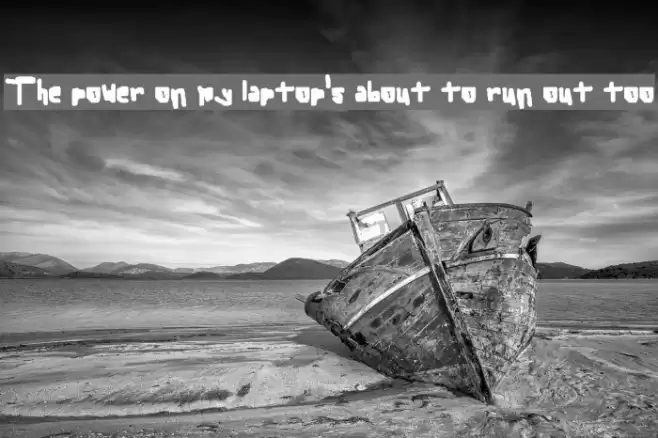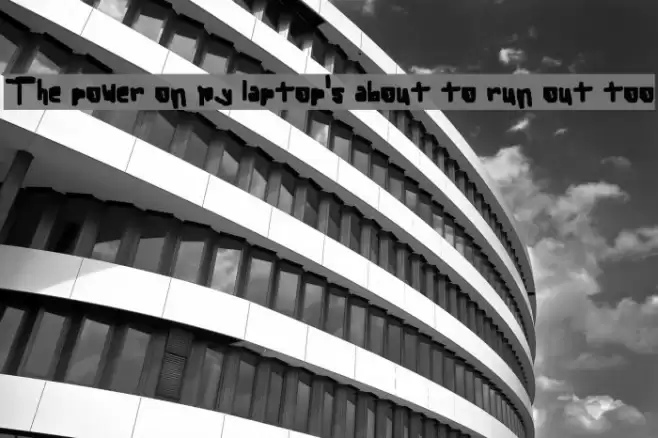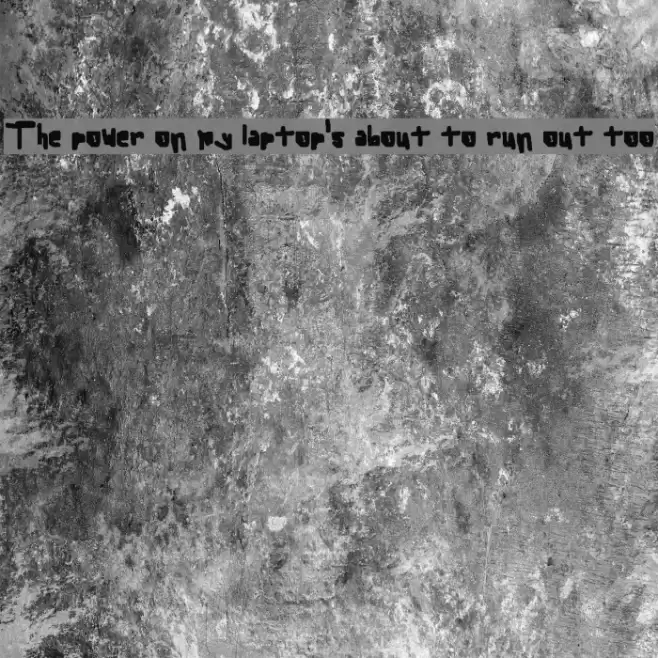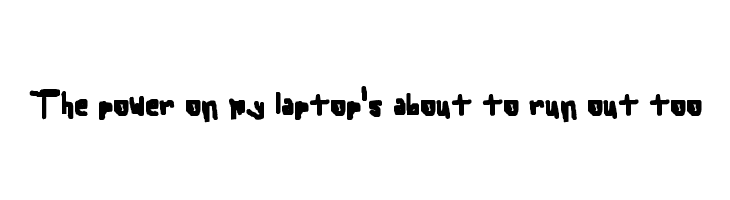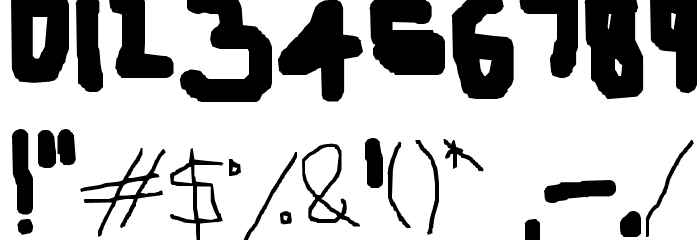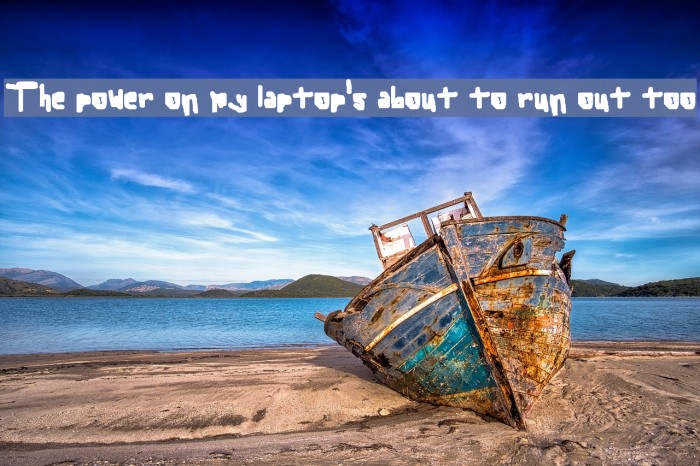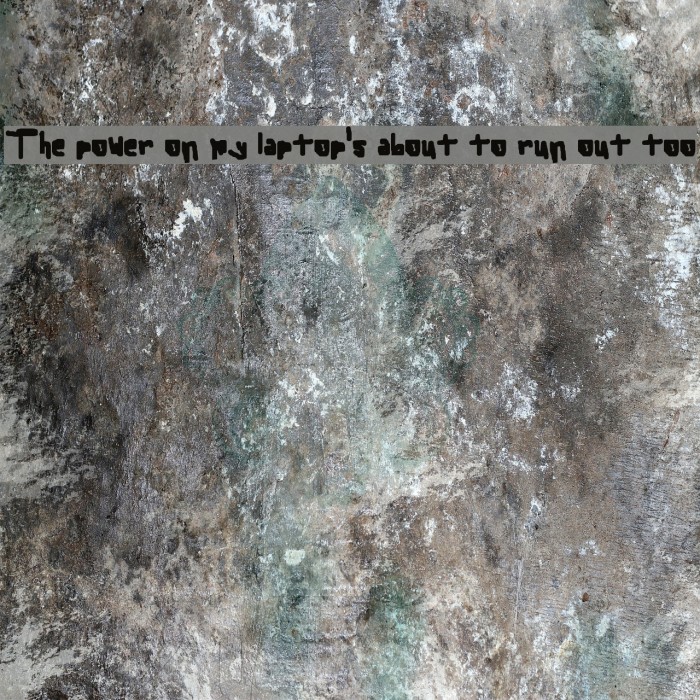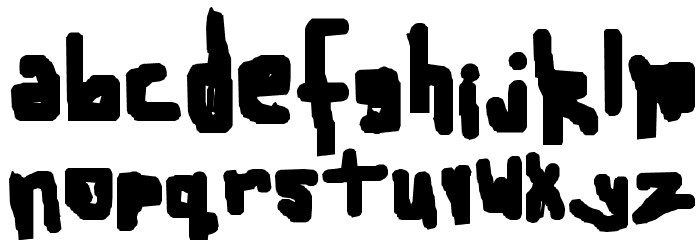
The power on my laptop's about to run out too Font
The power on my laptop's about to run out too Description
This font exhibits a bold and expressive style, characterized by its thick, uneven strokes and a hand-drawn appearance. The letters have a playful, almost graffiti-like quality, with irregular shapes and varying sizes that give it a dynamic and energetic feel. The uppercase and lowercase letters maintain a consistent style, while the numbers and special characters follow suit with the same boldness and irregularity. This font's unique and artistic design makes it stand out, offering a sense of creativity and spontaneity.
A bold, hand-drawn font with a playful, graffiti-like style from Uncategorized fonts.